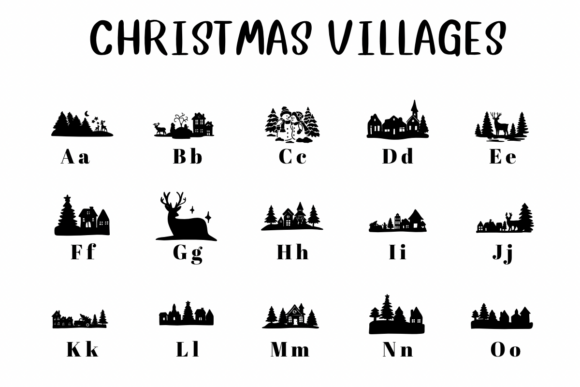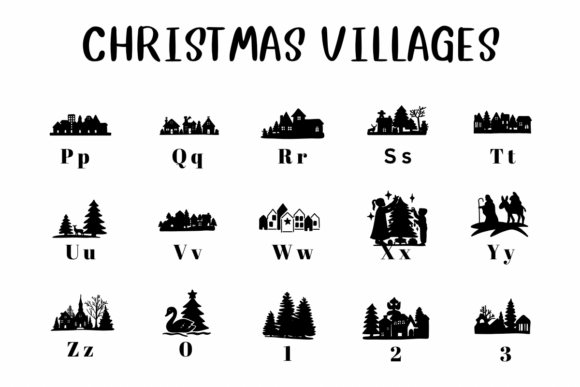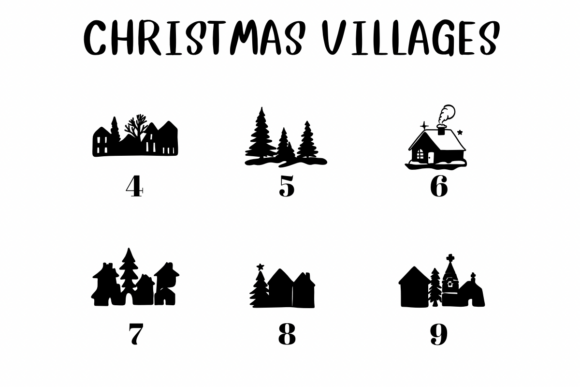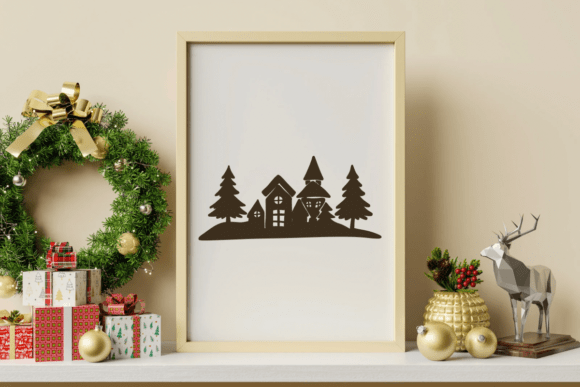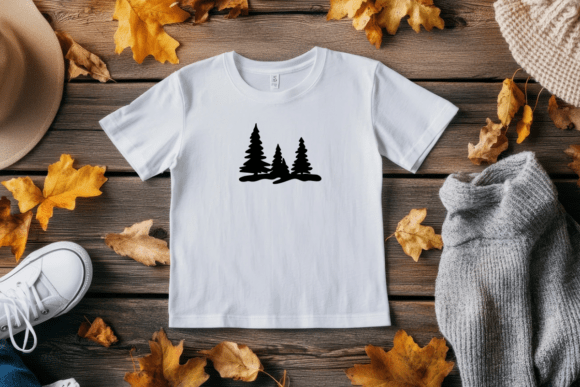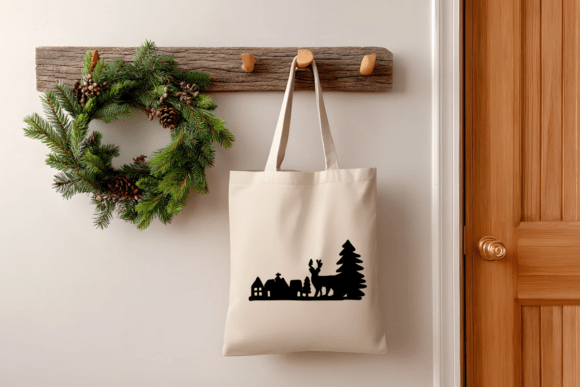
Introduction to Christmas Villages Font
As I sat at my desk, surrounded by twinkling fairy lights and the faint scent of pine, I stumbled upon the perfect design resource to bring my holiday-themed project to life – the Christmas Villages Font. The moment I saw its charming, festive characters, I knew I had found the perfect addition to my creative arsenal.
This high-quality dingbats font is more than just a design tool – it’s a game-changer for any creative project that requires a touch of holiday magic. With its transparent background and free download, it’s the perfect resource for designers looking to add a personal touch to their work. Whether you’re creating wedding invitations, DIY crafts, or decorations, the Christmas Villages Font is sure to bring your ideas to life.
Key Features of Christmas Villages Font
- High-quality design resource perfect for creative projects, especially holiday-themed illustrations and designs.
- Unique, hand-drawn style with intricate details and textures, ideal for adding a personal touch to designs.
- Perfect for use in a variety of creative projects, including invitations, greeting cards, and social media graphics.
Honest Review: Christmas Villages Font
I recently stumbled upon the Christmas Villages Font, a design resource that caught my eye. As a designer, I’m always on the lookout for unique and high-quality assets to elevate my creative projects.
What works well about this font is its nostalgic charm and the attention to detail in the design. The Christmas Villages Font features intricate illustrations of snow-covered villages, complete with snowflakes, pine trees, and festive lights. It’s perfect for adding a touch of whimsy to your winter-themed designs.
- ✨ Unique and eye-catching design
- ✨ High-quality illustrations
- ✨ Perfect for winter-themed creative projects
Overall, I’d give the Christmas Villages Font a solid 4 out of 5 stars. While it’s not without its limitations, the unique design and high-quality illustrations make it a valuable addition to any designer’s toolkit. It’s perfect for adding a touch of festive charm to your designs, and the free download is a definite bonus.
Some tips for getting the most out of Christmas Villages Font include using it in conjunction with other design elements, such as images and graphics, to create visually appealing designs. Common use cases for this font include creating custom invitations, holiday cards, and social media posts.